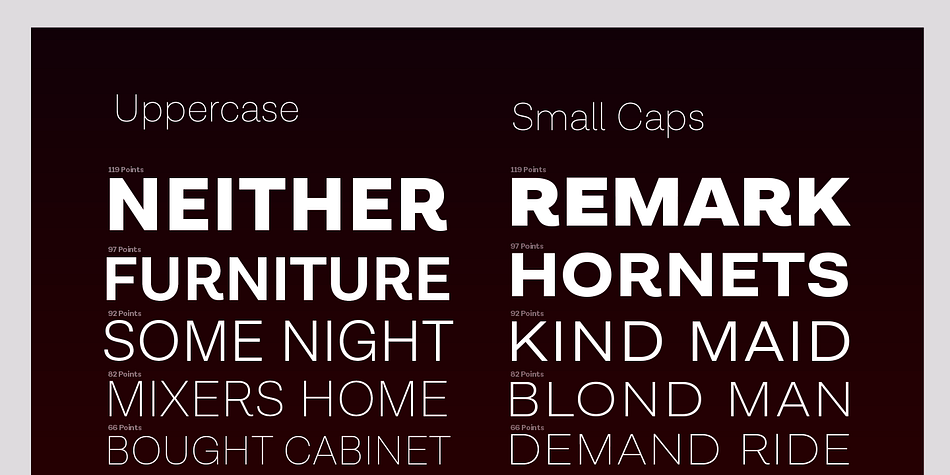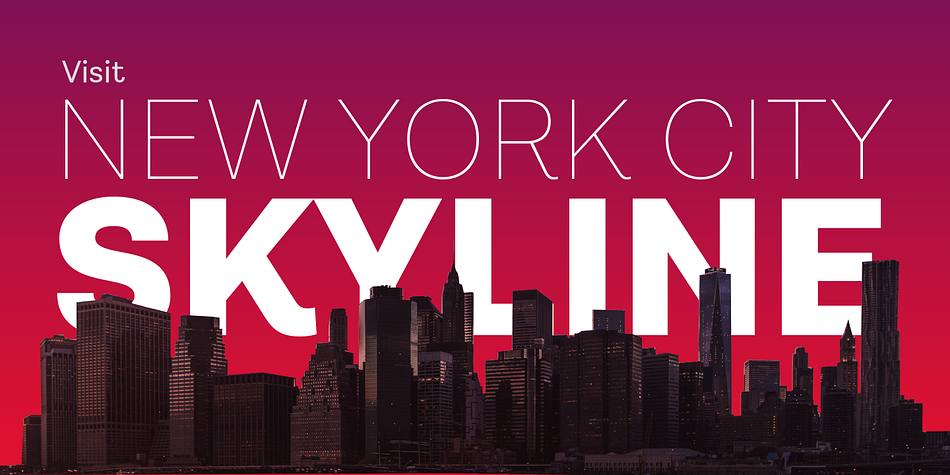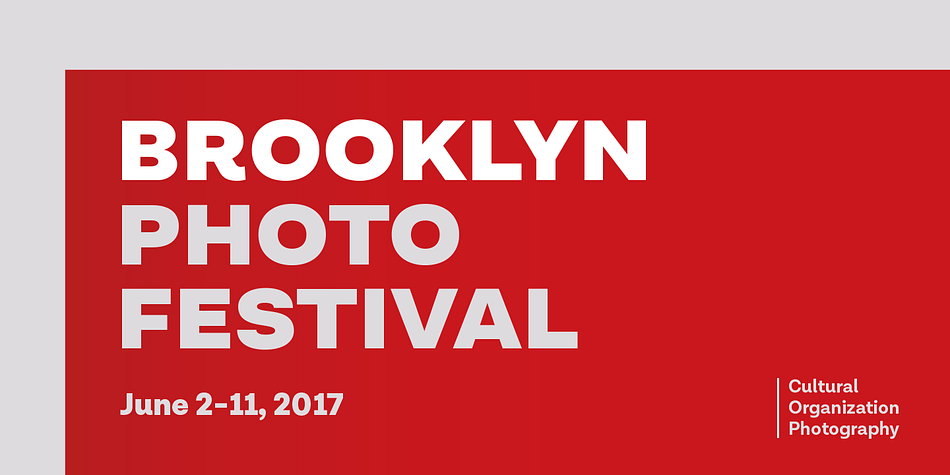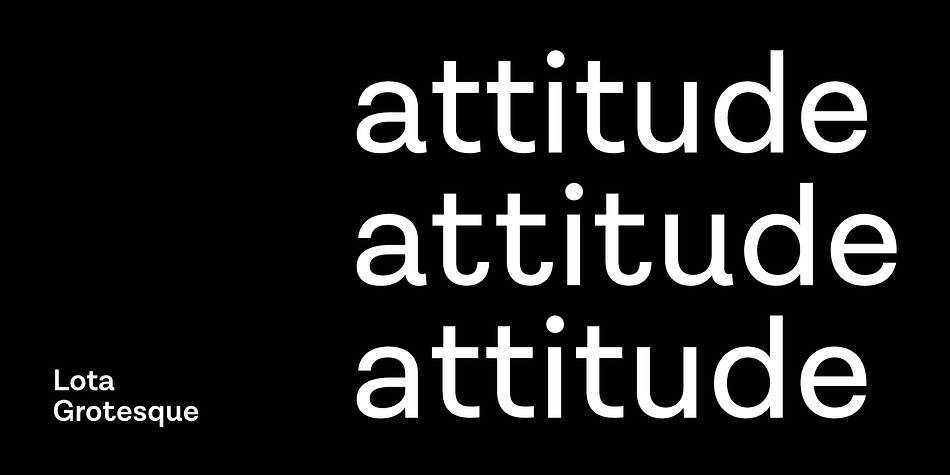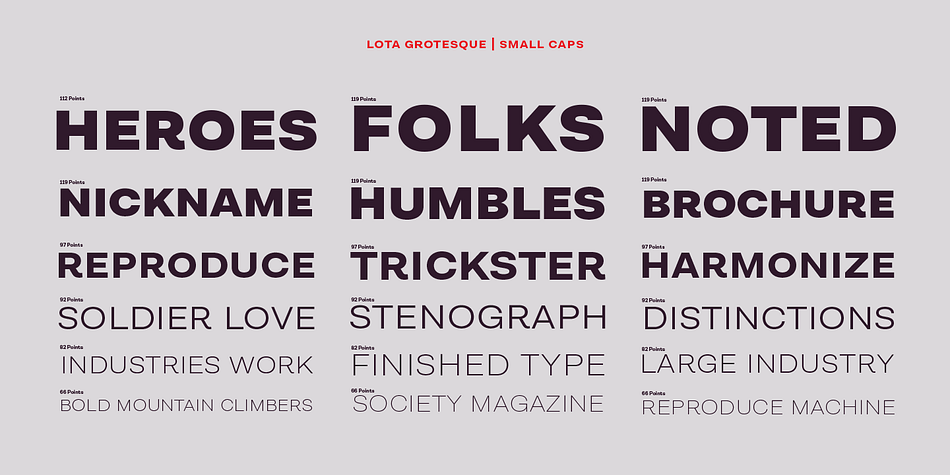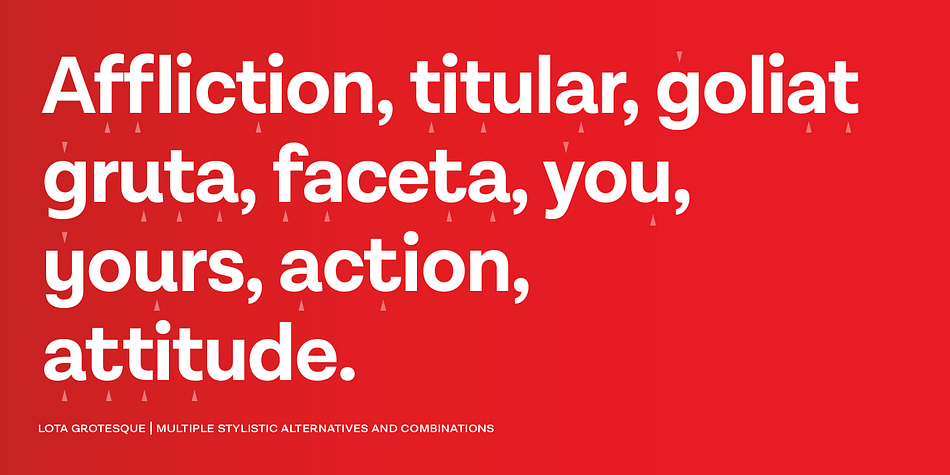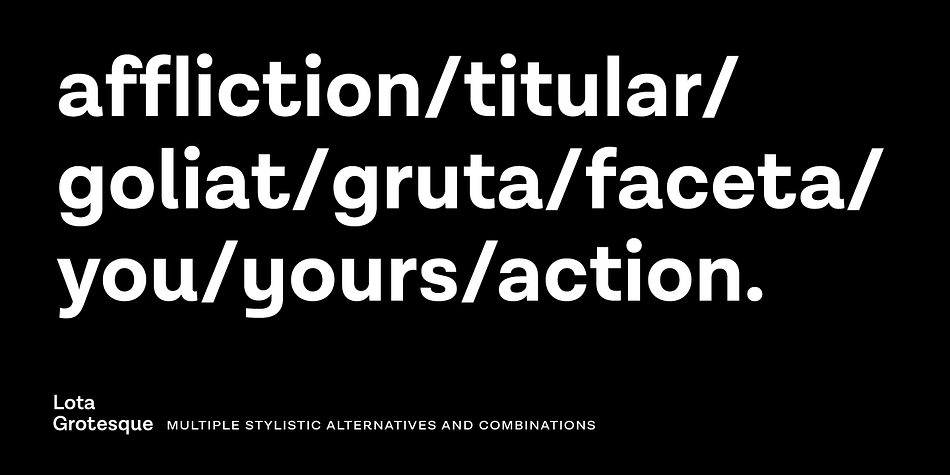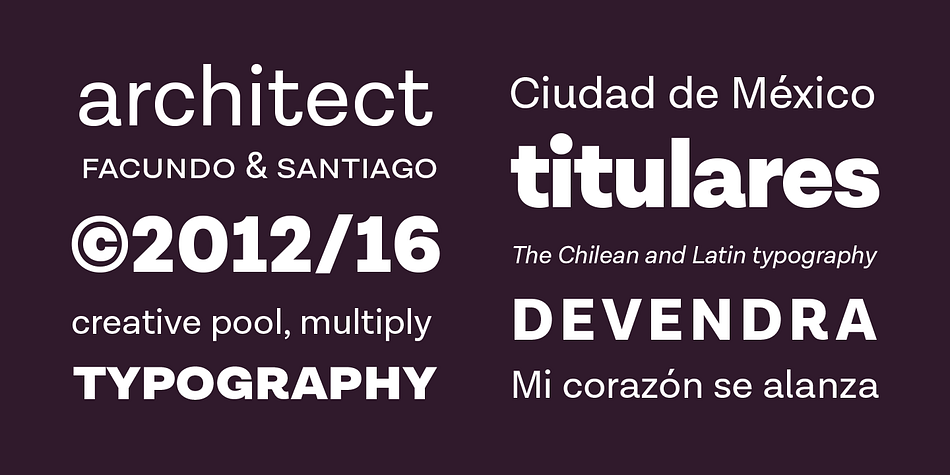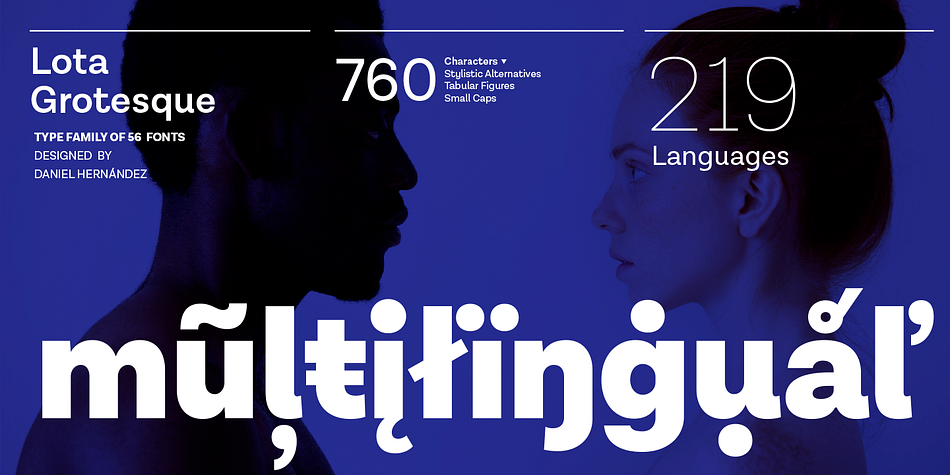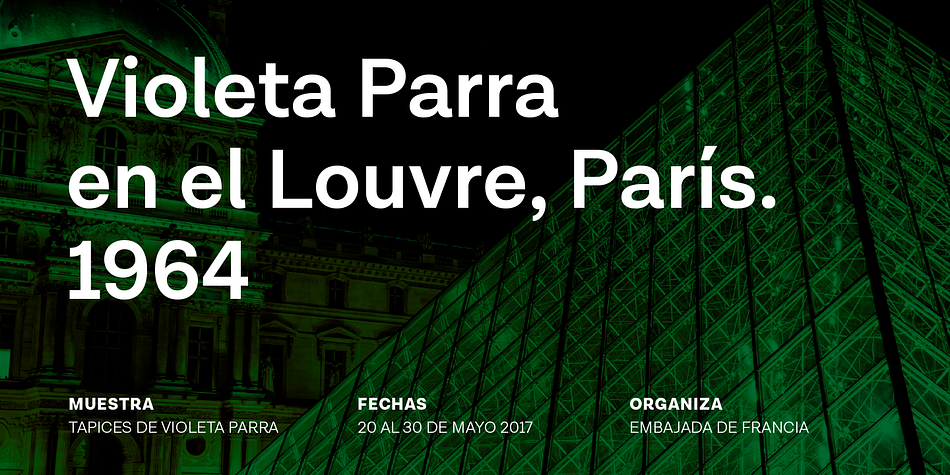
Designed by Daniel Hernández, Lota Grotesque is a sans serif font family. This typeface has fifty-six styles and was published by Los Andes Type.
Lota Grotesque was designed by Daniel Hernández with the collaboration of Rodrigo Fuenzalida and Latinotype Team in digital editing.
The family comes in 7 weights with matching italics and includes alternative versions that provide high versatility and functionality. The whole font family is composed of 4 subfamilies that share exactly the same number of characters and styles but with differences in programming and default characters.
Lota Grotesque contains a 760-character set that supports 219 languages and includes alternative characters, discretionary ligatures, small caps, and a variety of figures and fractions—a wide range of typographic tools to meet different design needs.